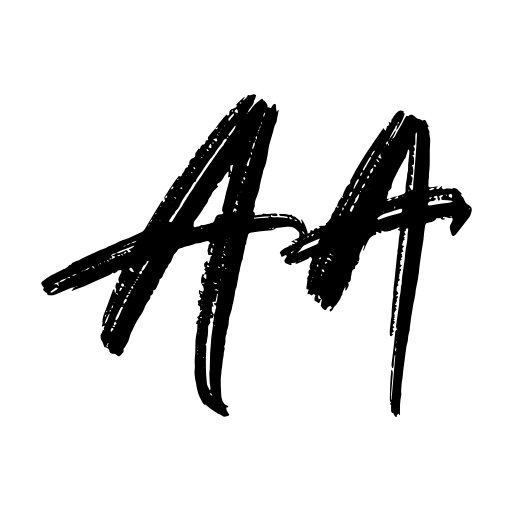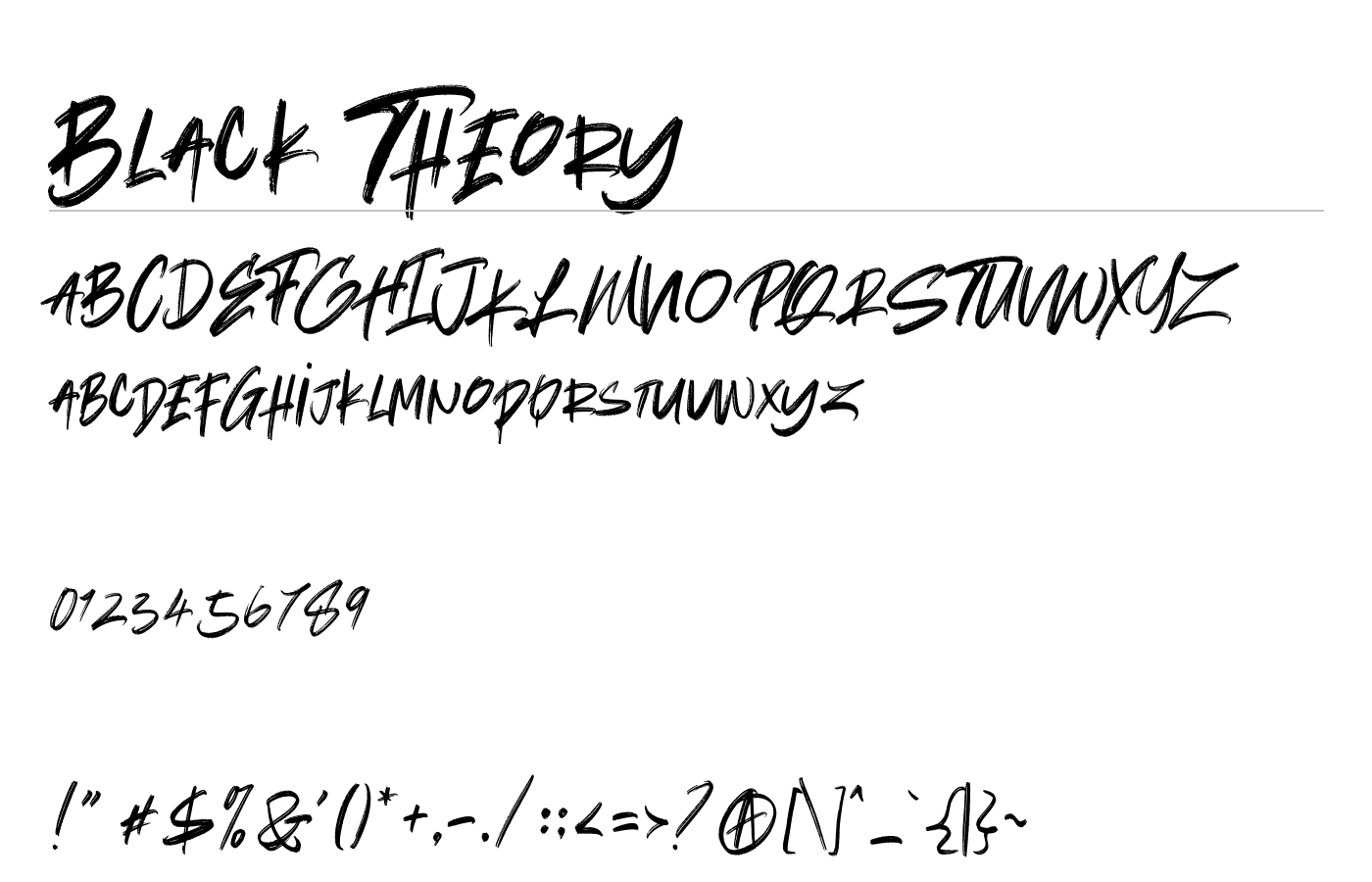
Black Theory is a bold, expressive handwritten script font with a dynamic, brush-stroke style that feels energetic and creative. Its irregular, casual letterforms give it a modern, edgy personality perfect for designs that want to convey spontaneity and artistic flair. This font works well in branding, posters, and editorial headlines where a strong, informal statement is desired.
Black Theory Font
About Black Theory Font
| Font family | Black Theory Font |
| Designer | Hendra Maulia |